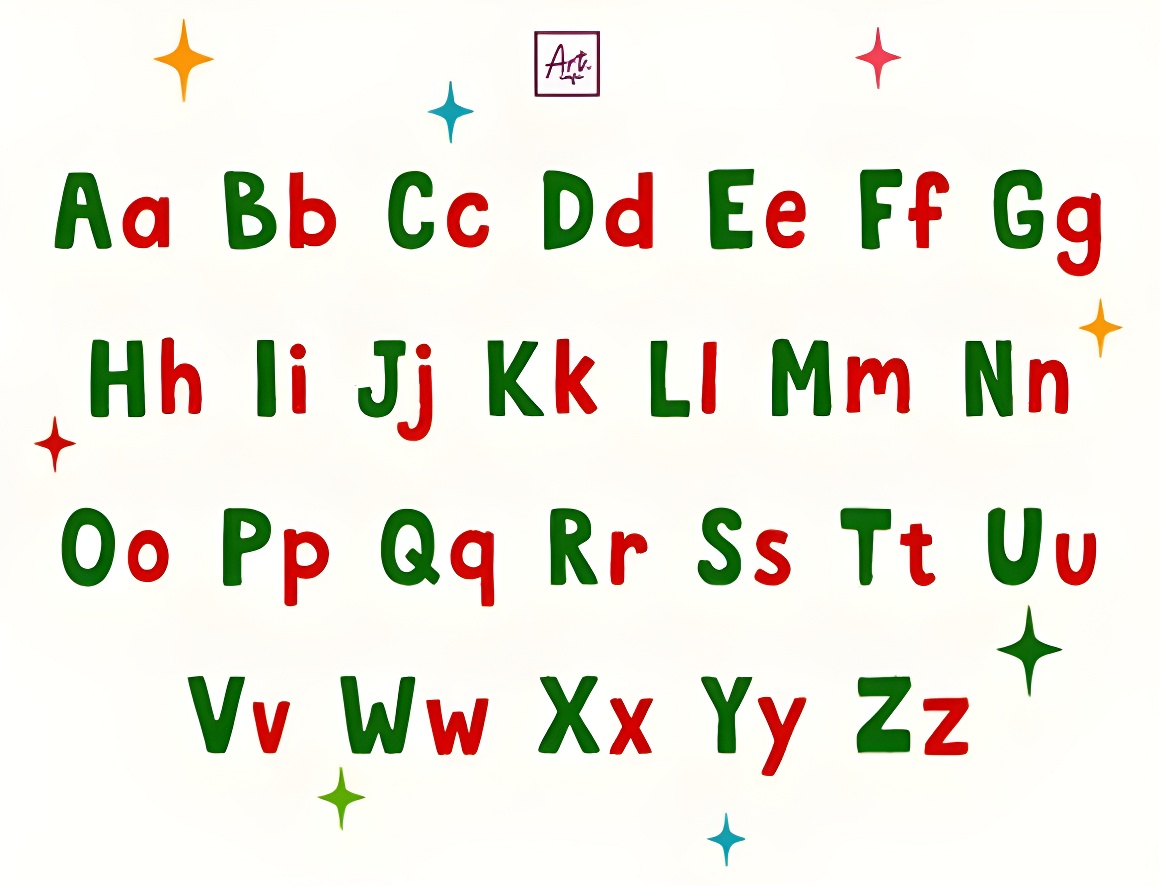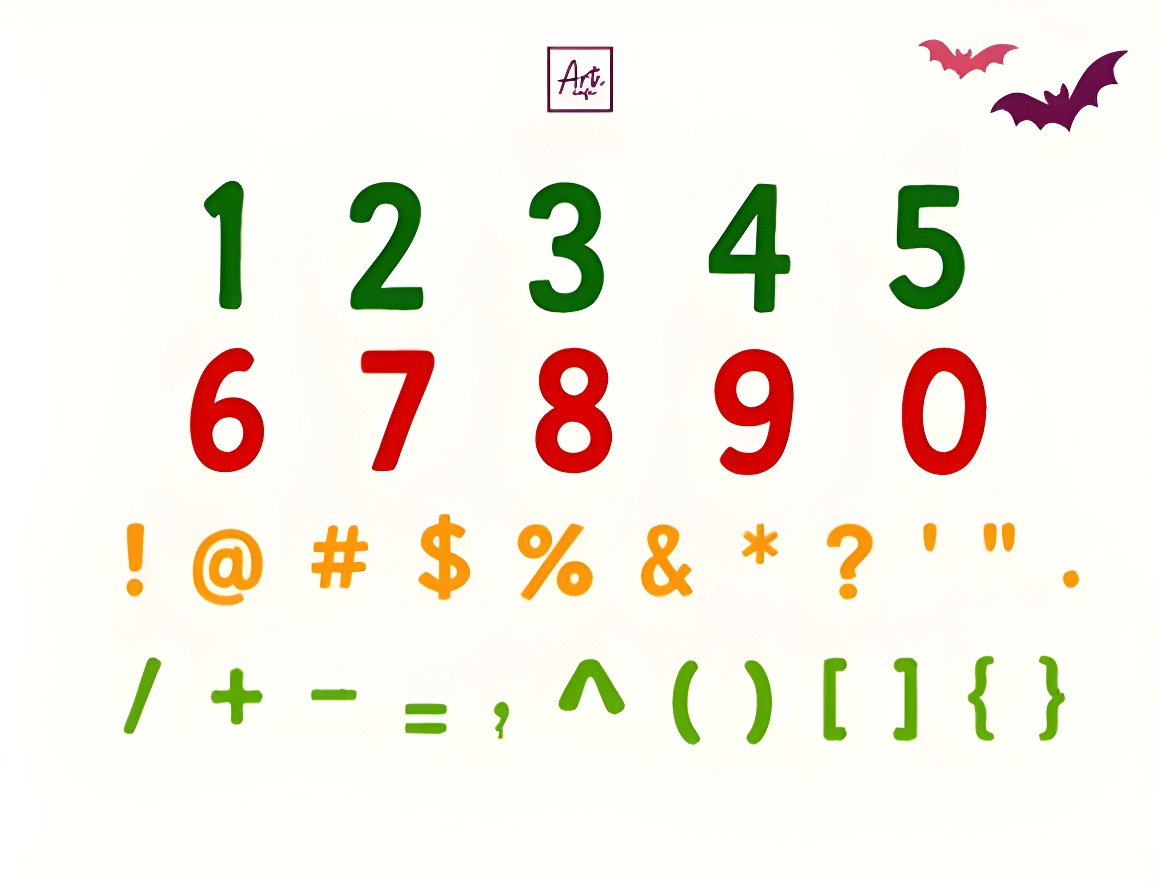
Jolly Christmas Font: Festive, Bold & Hand-Drawn Display Typeface
Spread holiday cheer with Jolly Christmas: a bold playful font featuring chunky hand-drawn style & bright festive vibes. Perfect for Christmas cards, invitations, posters, apparel, sublimation & more—ideal for print/digital holiday projects!